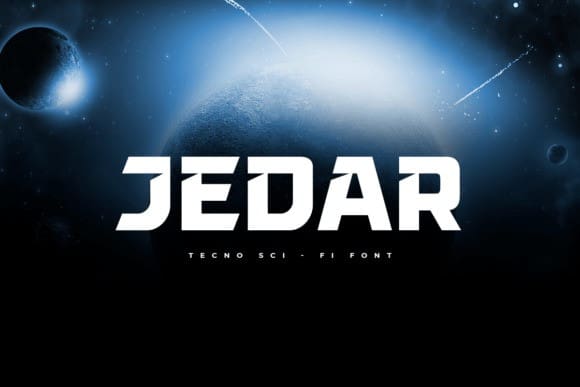
Jedar Font
Jedar Font is a bold and futuristic sans serif font. No matter the topic, this font will be an incredible asset to your fonts’ library, as it has the potential to elevate any creation.